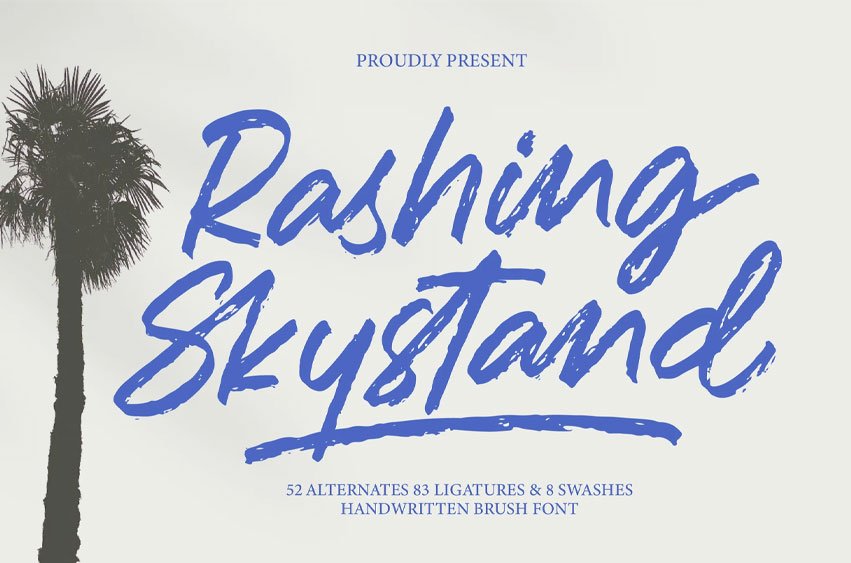
Rashing Skystand Font is suitable to complement your digital and printed creative products. This font is perfect for posters, social media posts, branding, personal projects, etc.